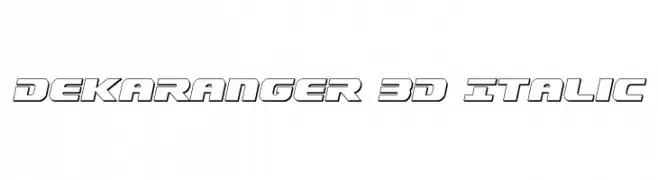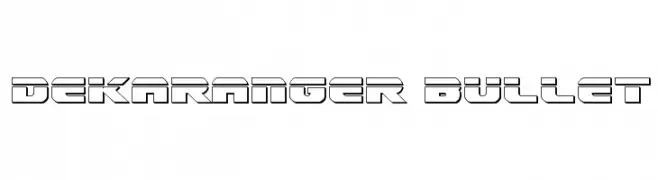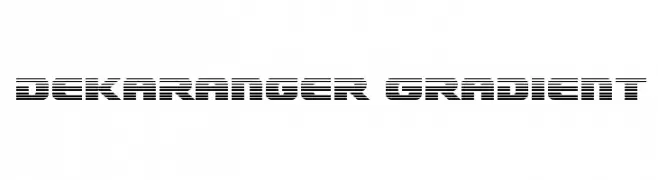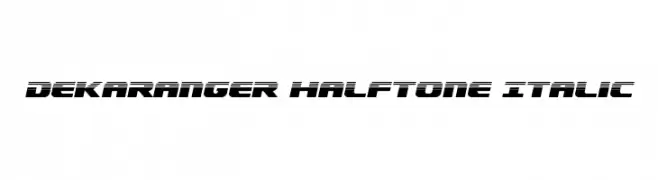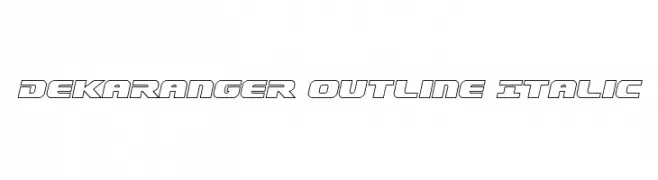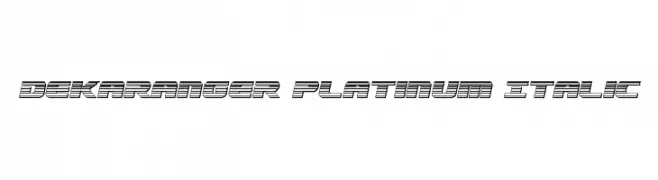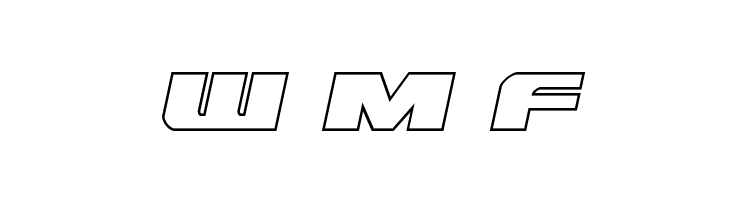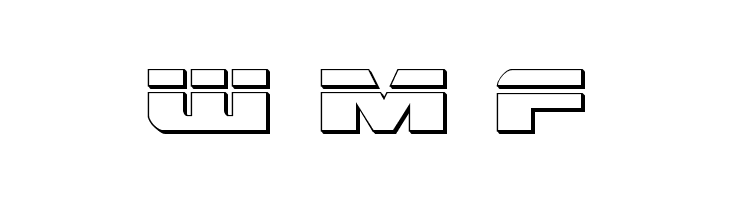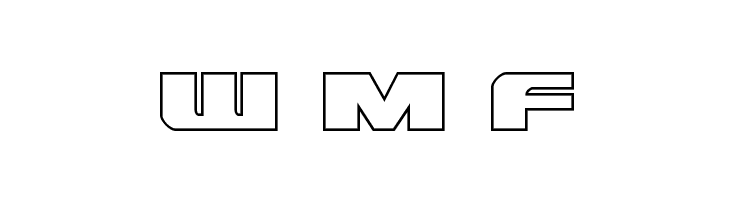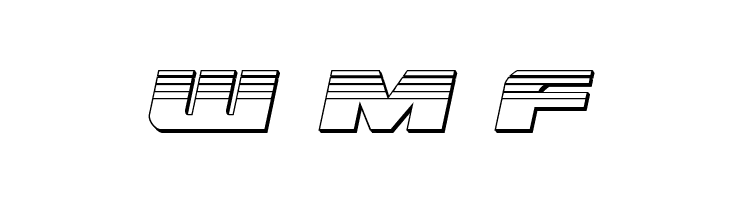
Dekaranger Condensed Italic Font
A bold, condensed, and italicized font with a futuristic and dynamic style.
Dekaranger Italic Font
A bold, italicized font with a futuristic and angular design.
Dekaranger Expanded Italic Font
A bold, expanded, and italic font with a modern, dynamic style.
Dekaranger Regular Font
A bold, futuristic font with geometric shapes and a sci-fi aesthetic.
Dekaranger Condensed Font
A bold, futuristic font with a condensed, geometric design.
Dekaranger Expanded Font
A bold, futuristic font with wide, geometric letterforms and a modern aesthetic.
Dekaranger Outline Font
A bold, geometric outline font with a futuristic and dynamic style.
Dekaranger Leftalic Font
A bold, futuristic font with angular, geometric shapes and medium contrast.
Dekaranger Platinum Italic Font
A futuristic, italic font with a striped, dynamic design.
Dekaranger Outline Italic Font
A bold, italicized outline font with a futuristic and modern design.
Dekaranger 3D Italic Font
A bold, 3D italic font with a futuristic and dynamic style.
Dekaranger Laser Font
A bold, futuristic font with geometric and angular design elements.
Dekaranger Laser Italic Font
A bold, italic, futuristic font with sharp angles and geometric shapes.
Dekaranger Chrome Italic Font